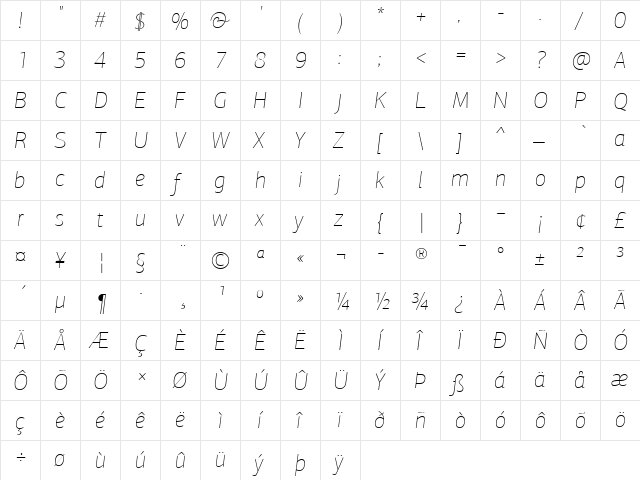
PF Agora Sans Pro XThin Italic
| Foundry | Parachute蠗orldwide |
| Designer | Panos Vassiliou |
Design Context for PF Agora Sans Pro Typeface
PF Agora Sans Pro is a composed and adaptable typeface that performs quietly and consistently across a wide range of design contexts. Its italic angle brings a sense of urgency and motion to the letterforms. Its slender proportions lend an understated elegance to any composition.
Pro Tip: Use PF Agora Sans Pro for emphasis, pull quotes, and subheadings where its slanted energy can add rhythm to the layout.